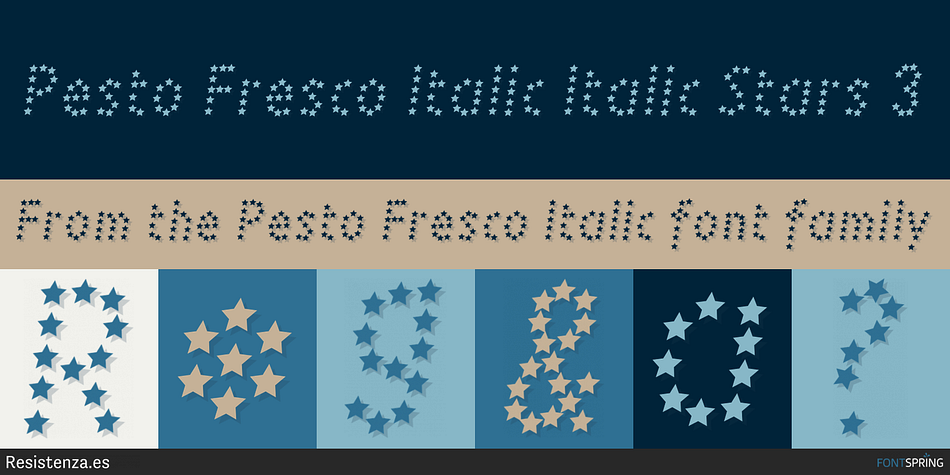
Designed by Giuseppe Salerno and Paco González, Pesto Fresco Italic is a display sans and dingbat font family. This typeface has twenty-seven styles and was published by Resistenza.es.
Pesto Fresco Italic Italic Stars 3
Pesto Fresco Italic is a new version of Pesto Fresco handwritten lettering system, a font family built of 27 styles. Overlapping Pesto Fresco Italic Regular with any of the other decorative styles you will get different graphic effects, so just choose the one that fits best with your layout. This font can be used for different purposes from packaging design to web design.